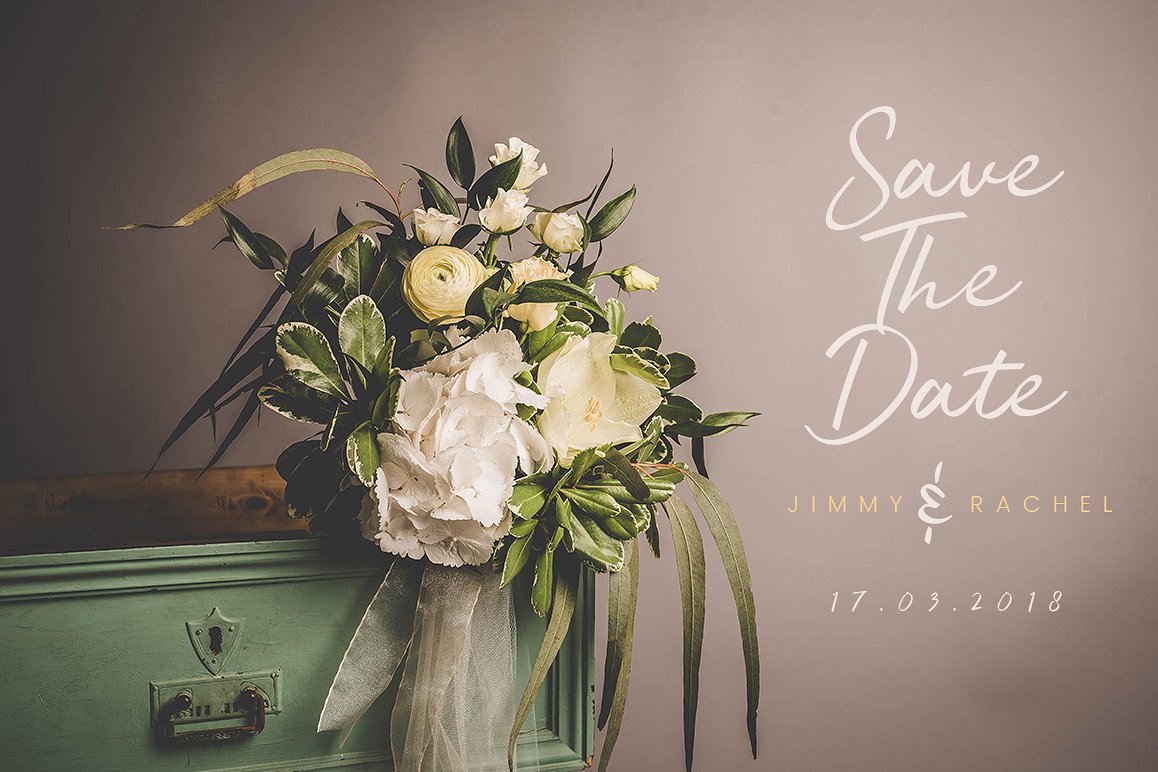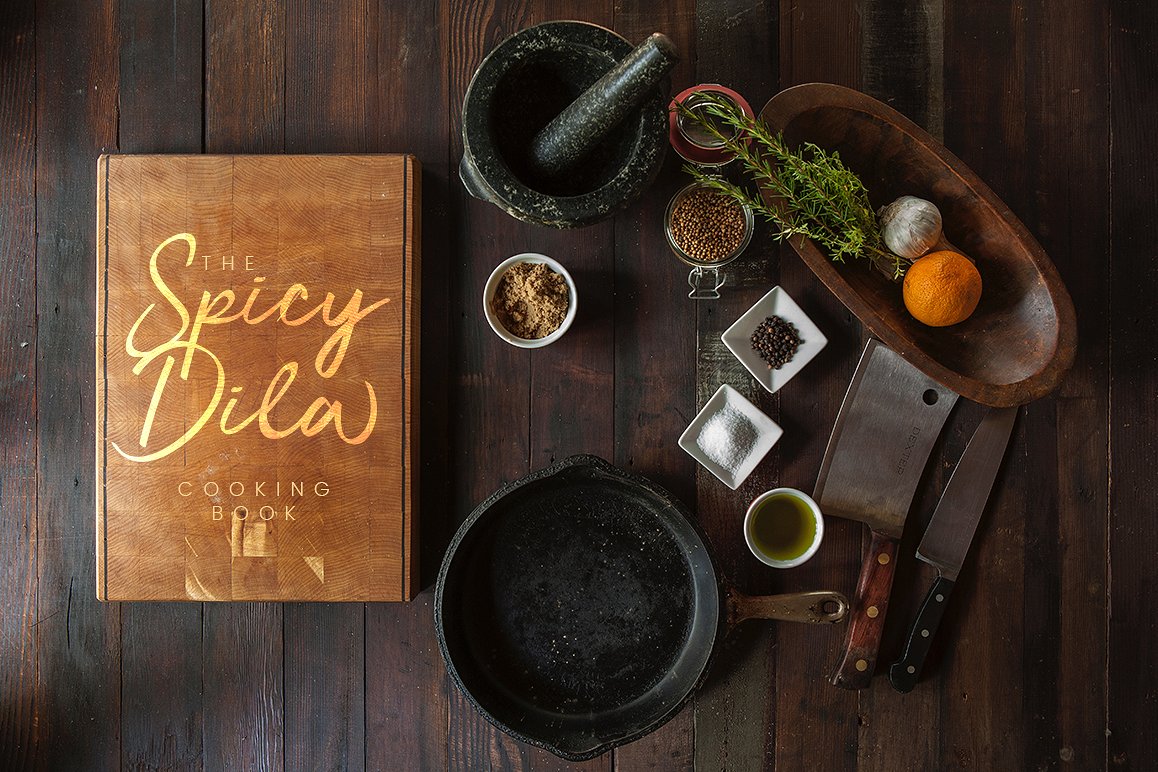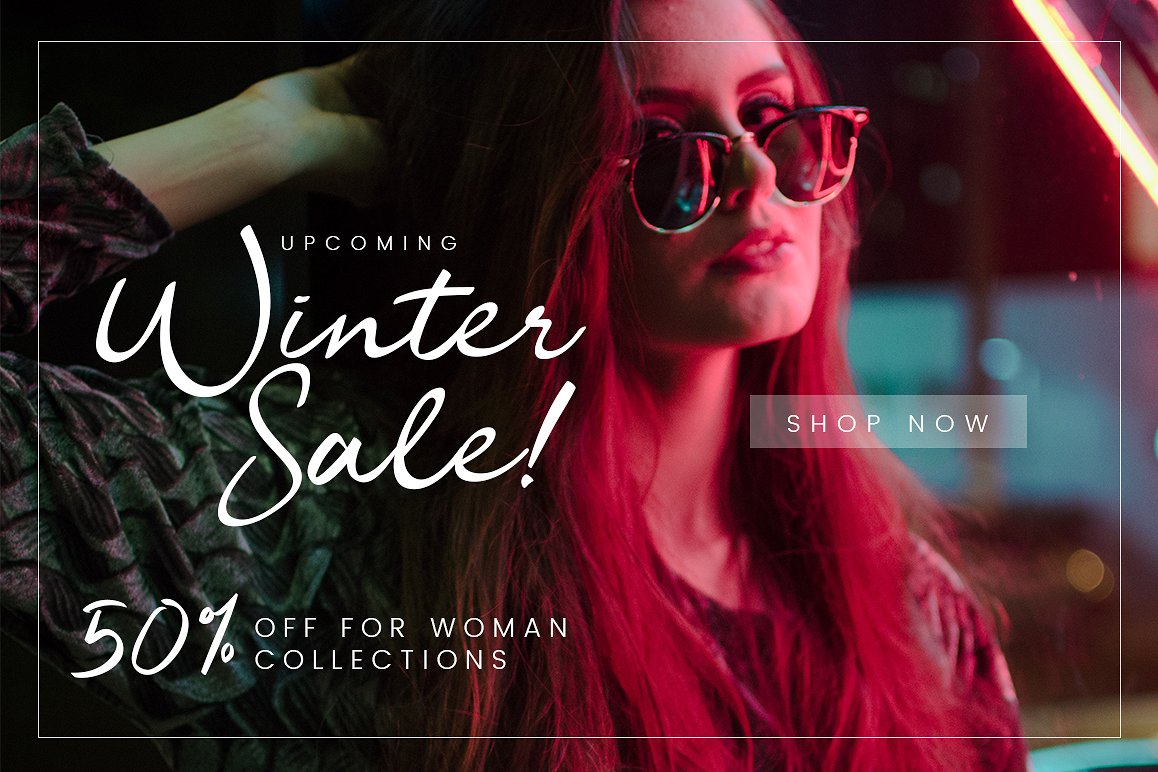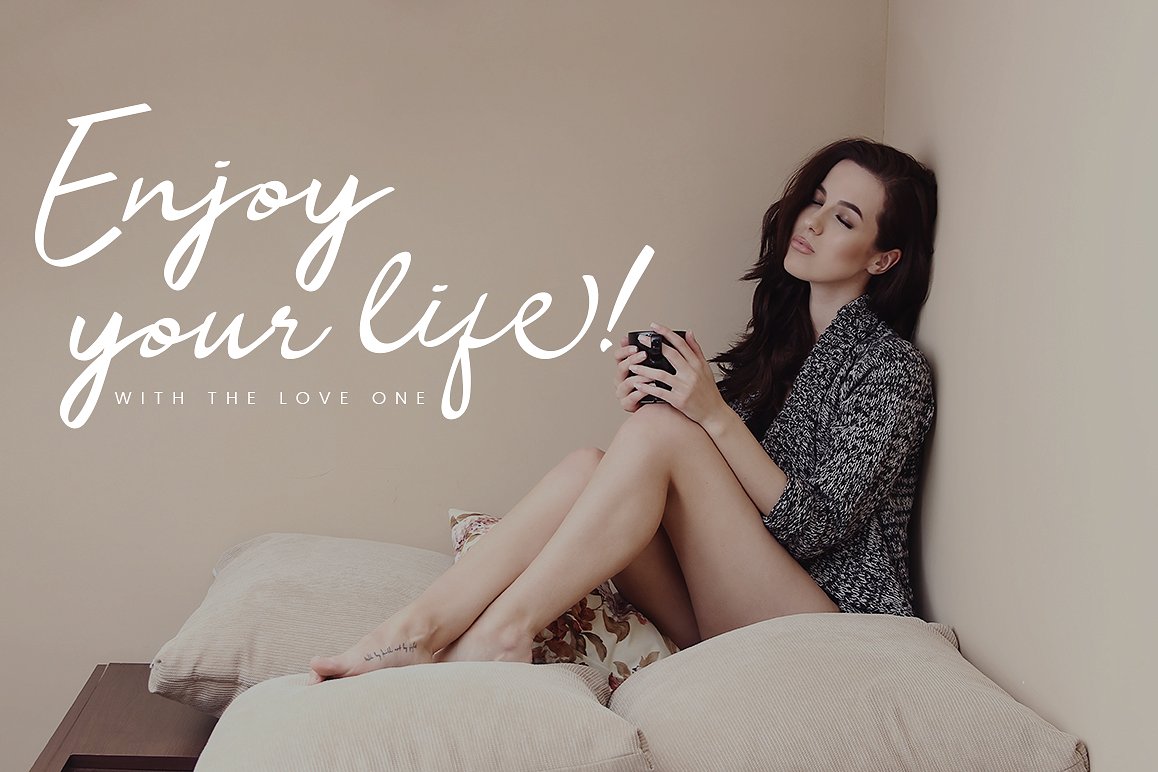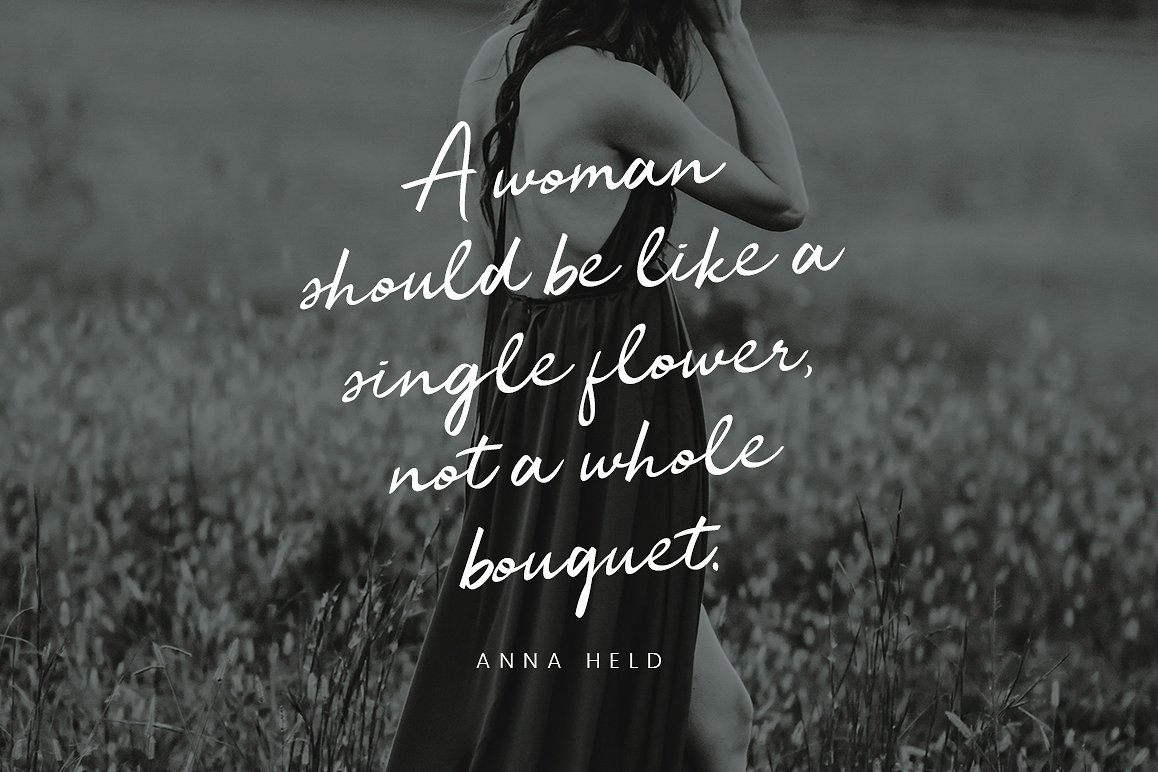
If you’re in need of a stunning new font, set your eyes on Jelytta. Designed by Creatype Studio, Jelytta is perfect for wedding designs, social media posts, advertisements, logos & branding, product designs, product packaging and more! Free for personal use!